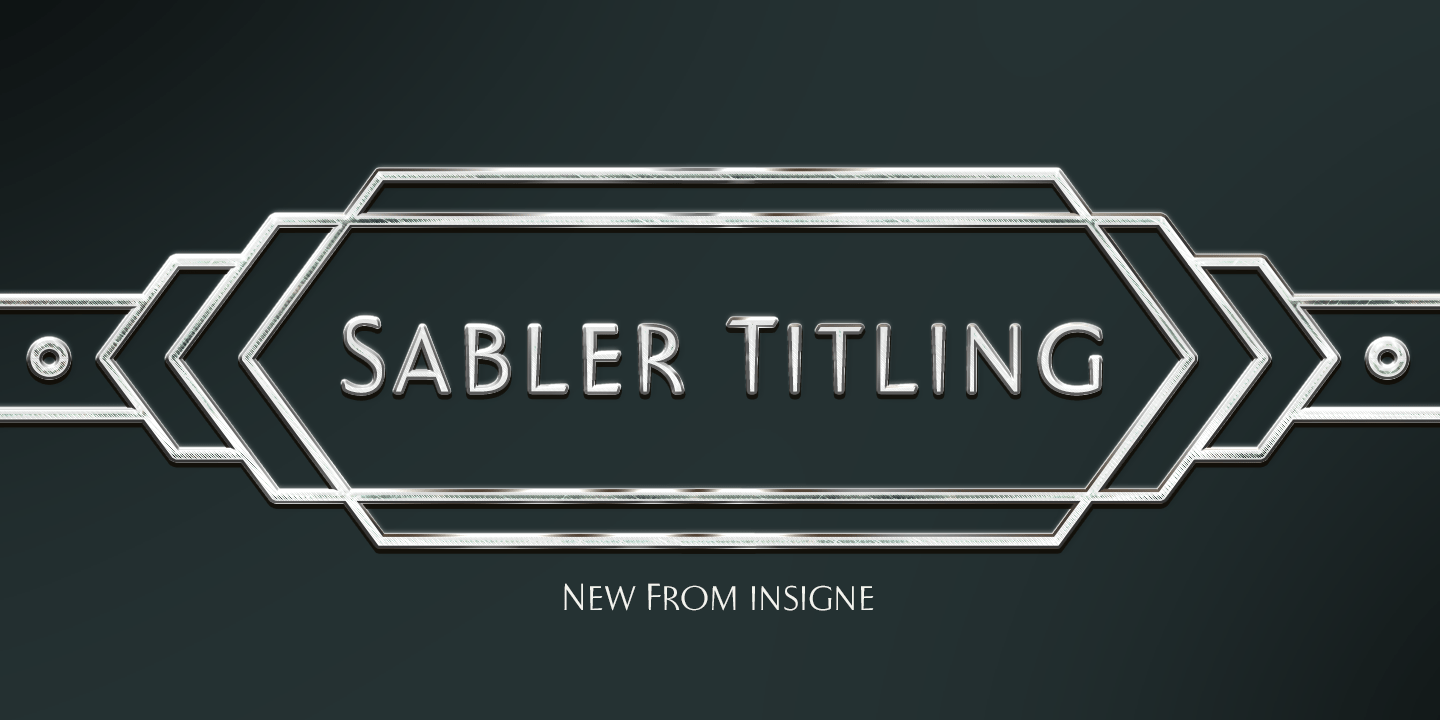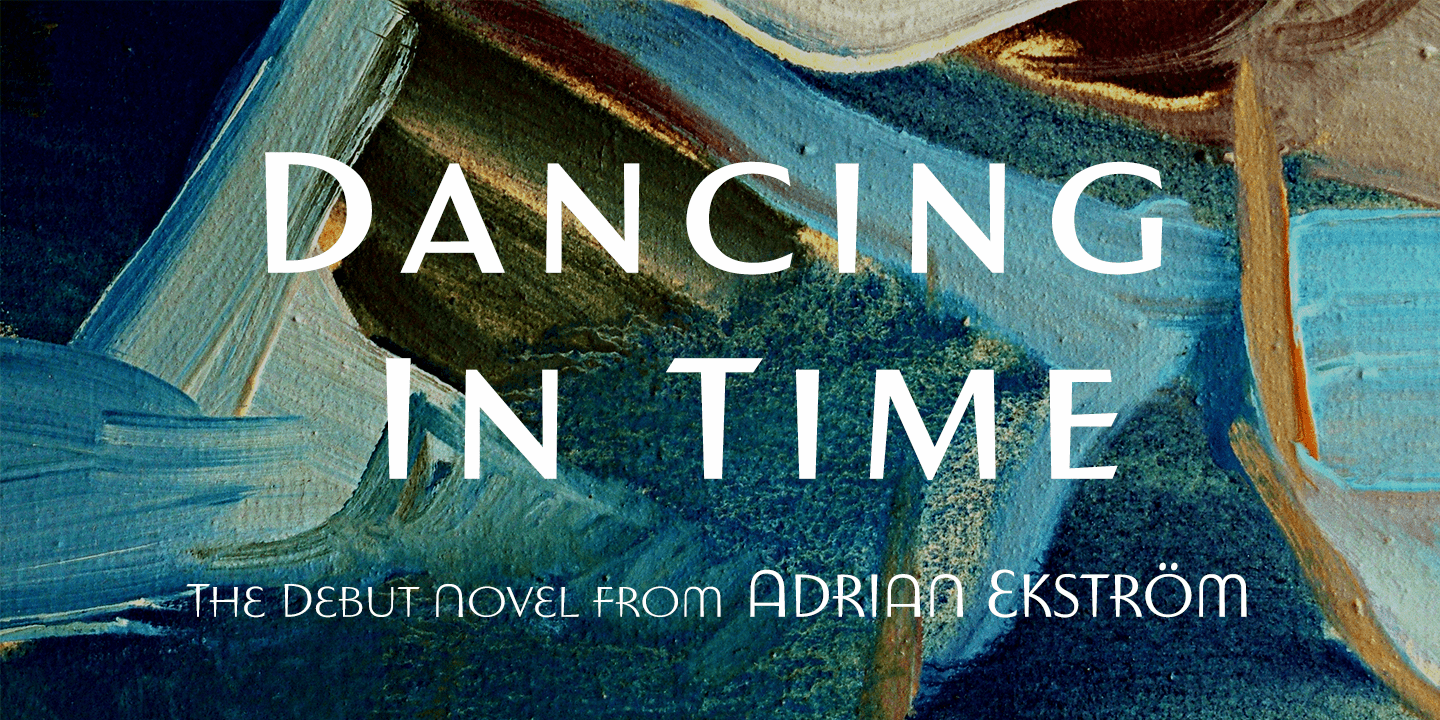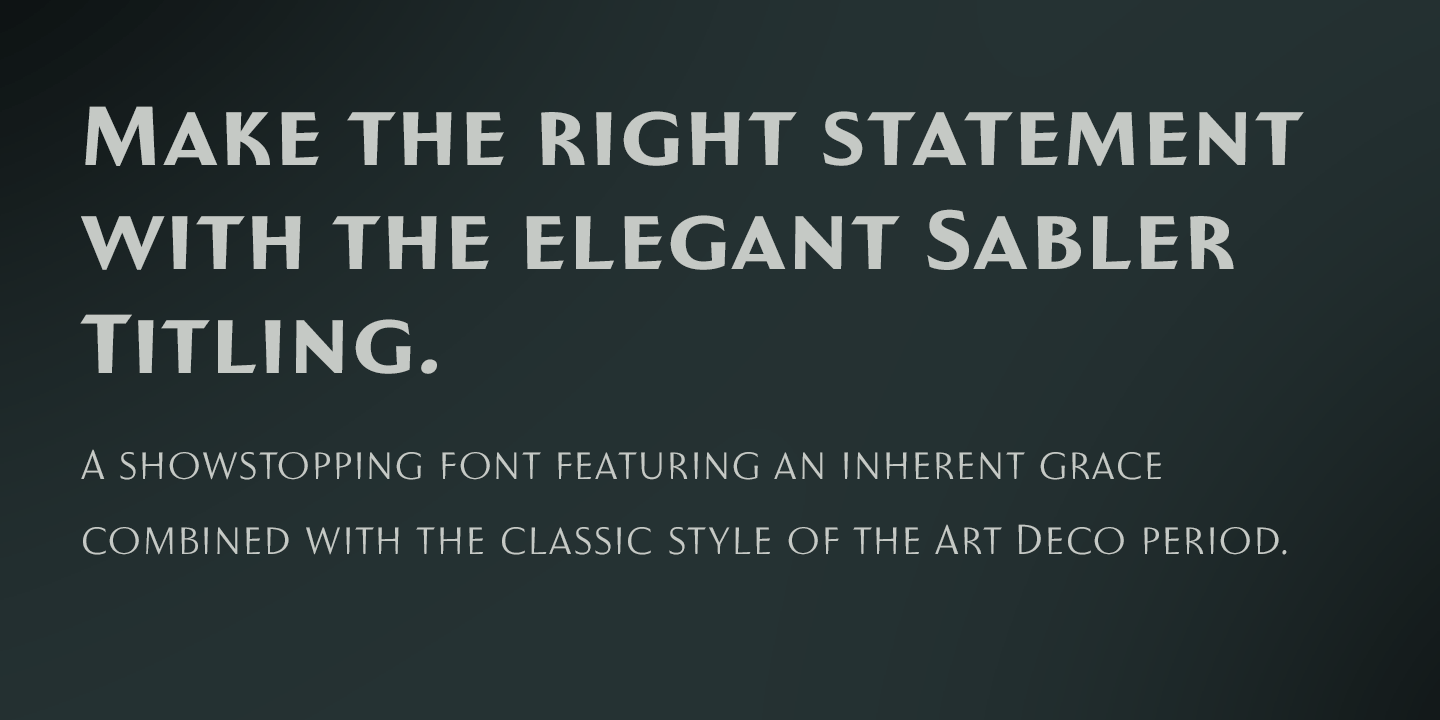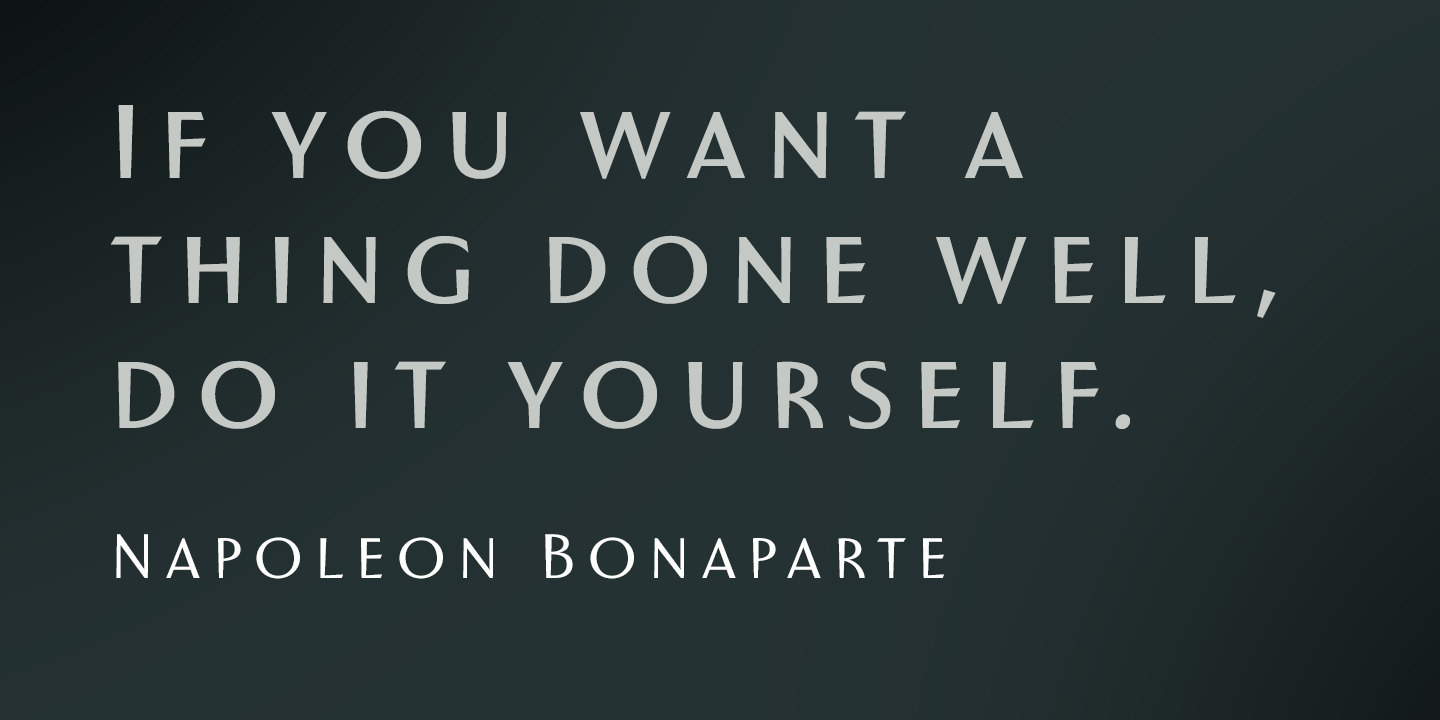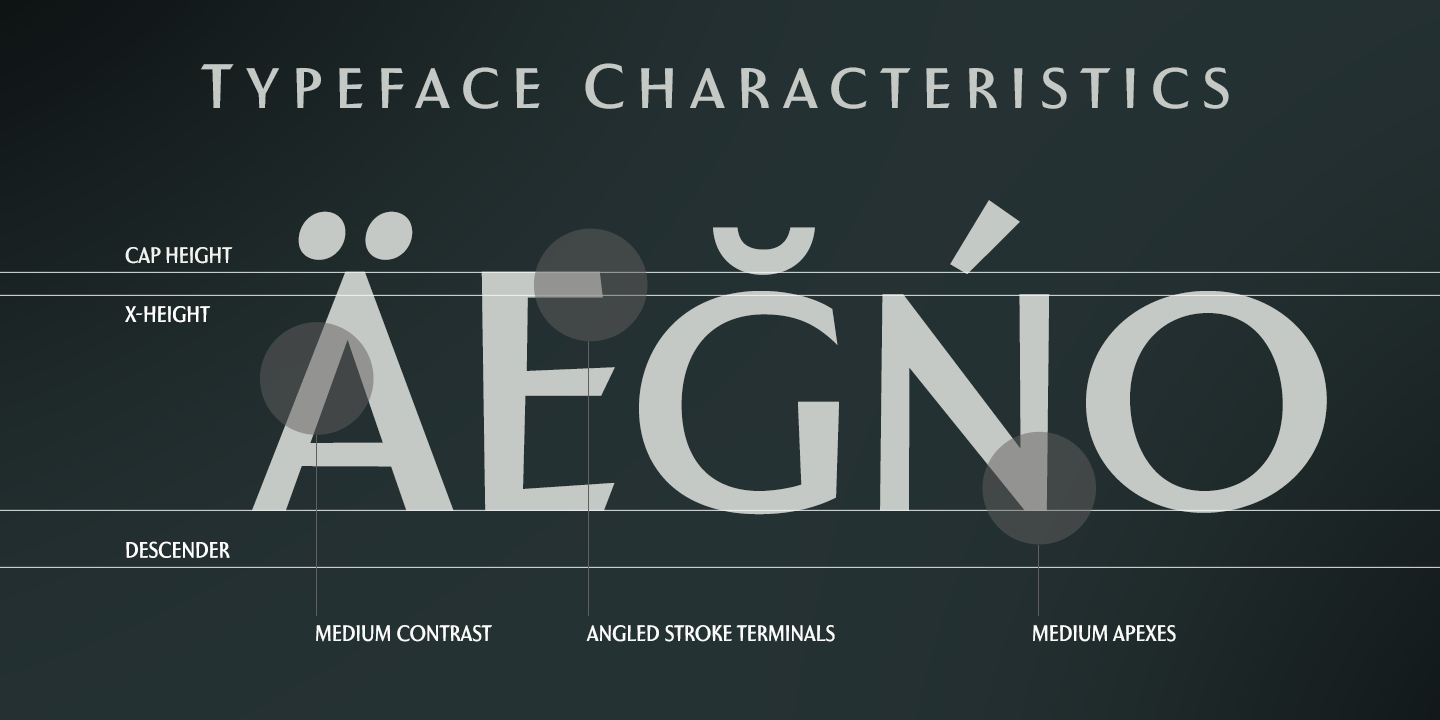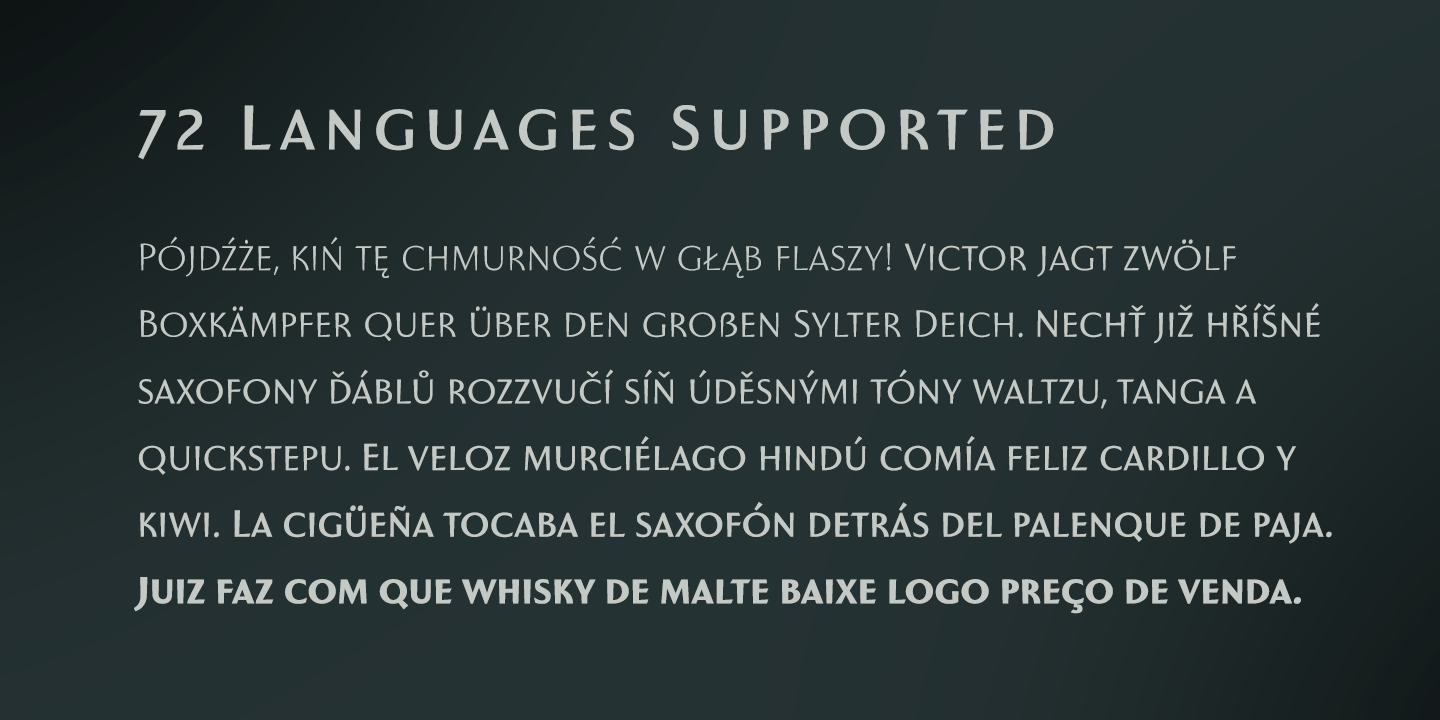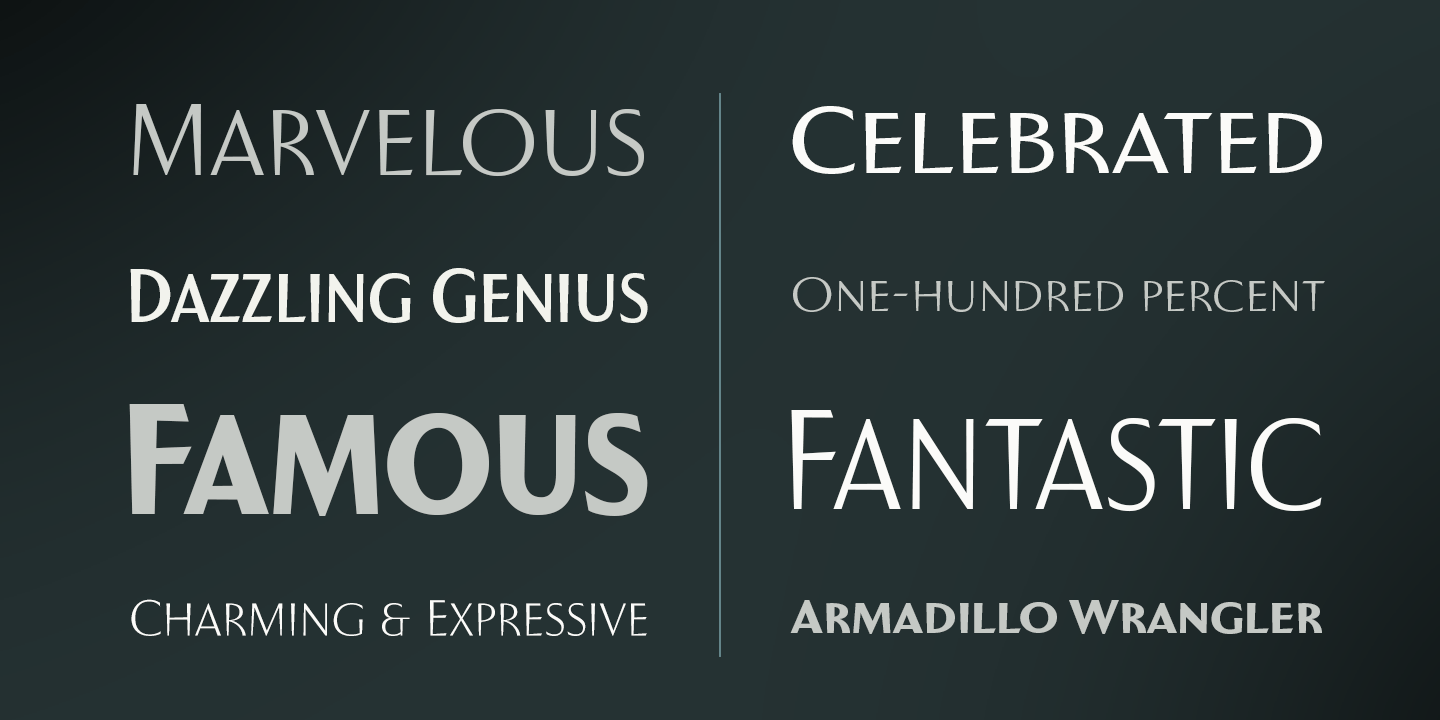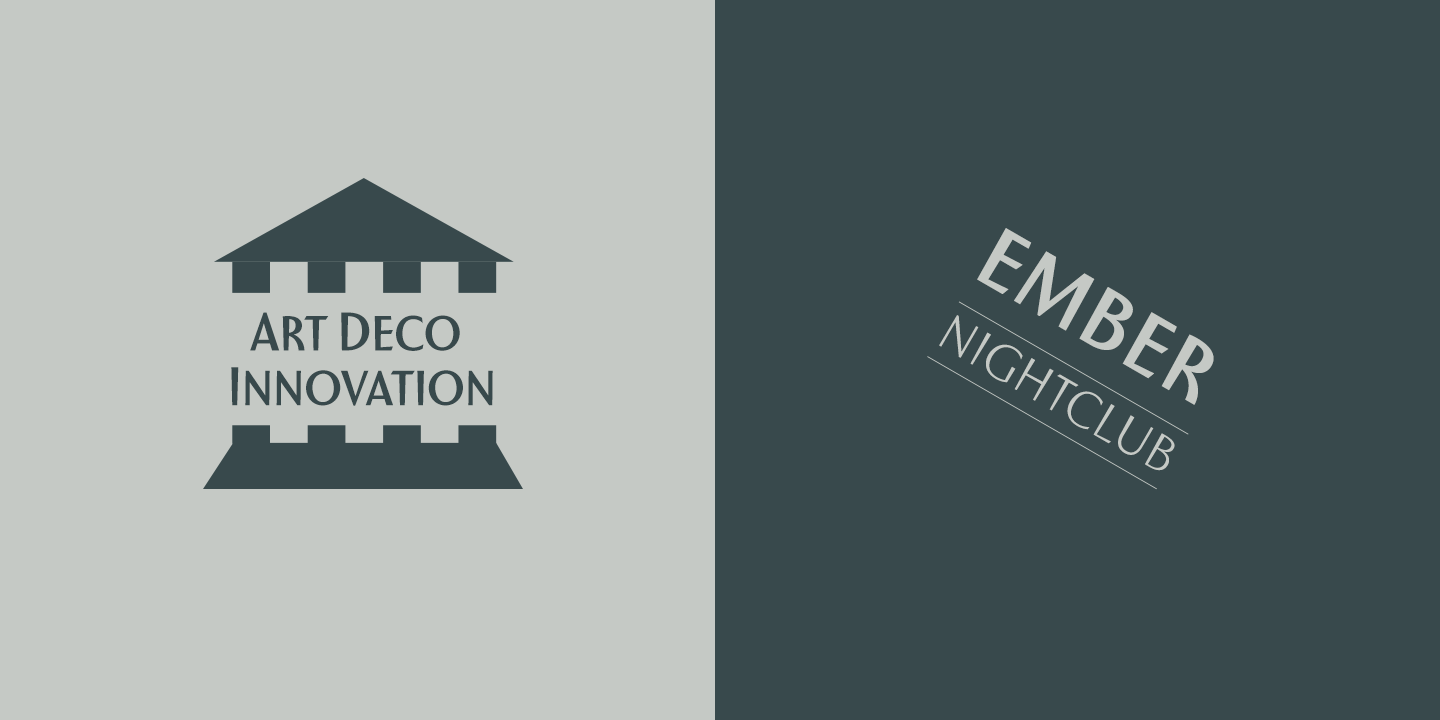
Sabler Titling
Font Family by Insigne
Make the right statement with the elegant Sabler Titling. This showstopping font features an inherent grace combined with the classic style of the Art Deco period. The subtle beauty of its letters is highlighted by the typeface's stems, which taper towards the baseline highlight--a feature that adds clear distinction to your design.
Originally inspired by a WPA poster, this typeface has been expanded to include three equally elegant proportions. Sabler Titling includes more than 60 free alternative forms, including support for most Latin-based languages.
Add a hint of seduction to your work with Sabler's high-contrast letterforms--ideal for magazines, advertisements and books on fashion, fine arts, and luxury goods of all kinds.